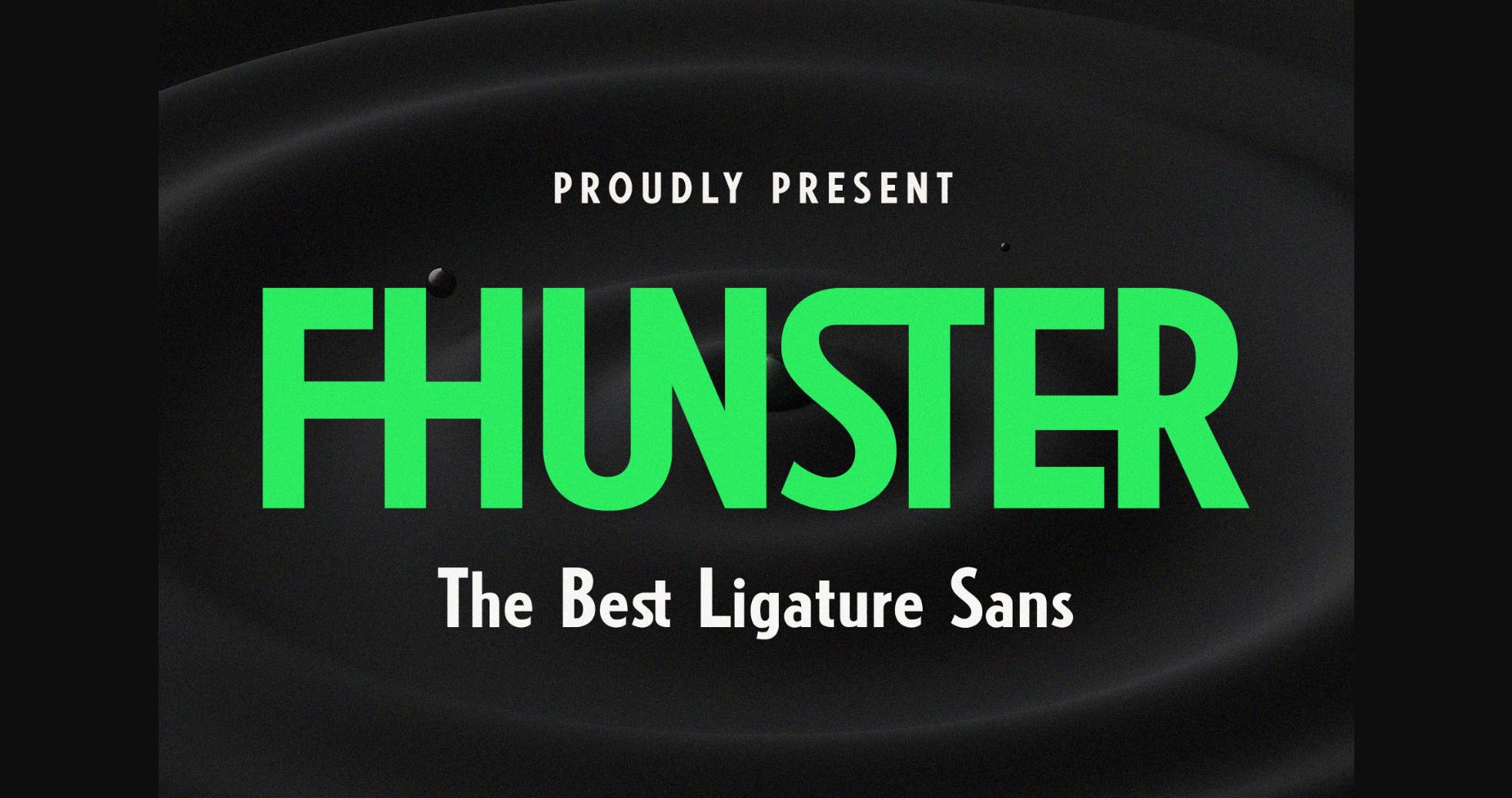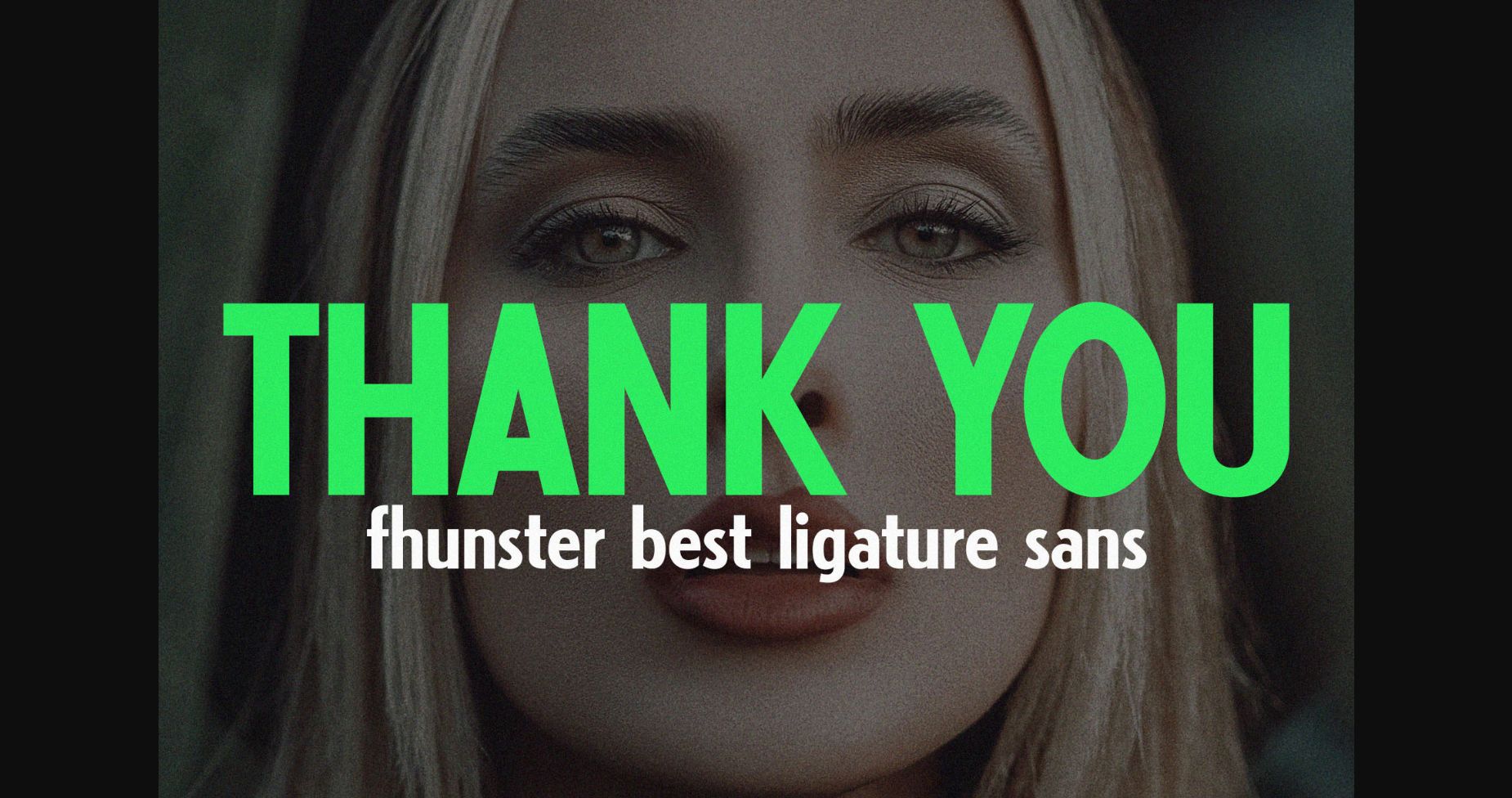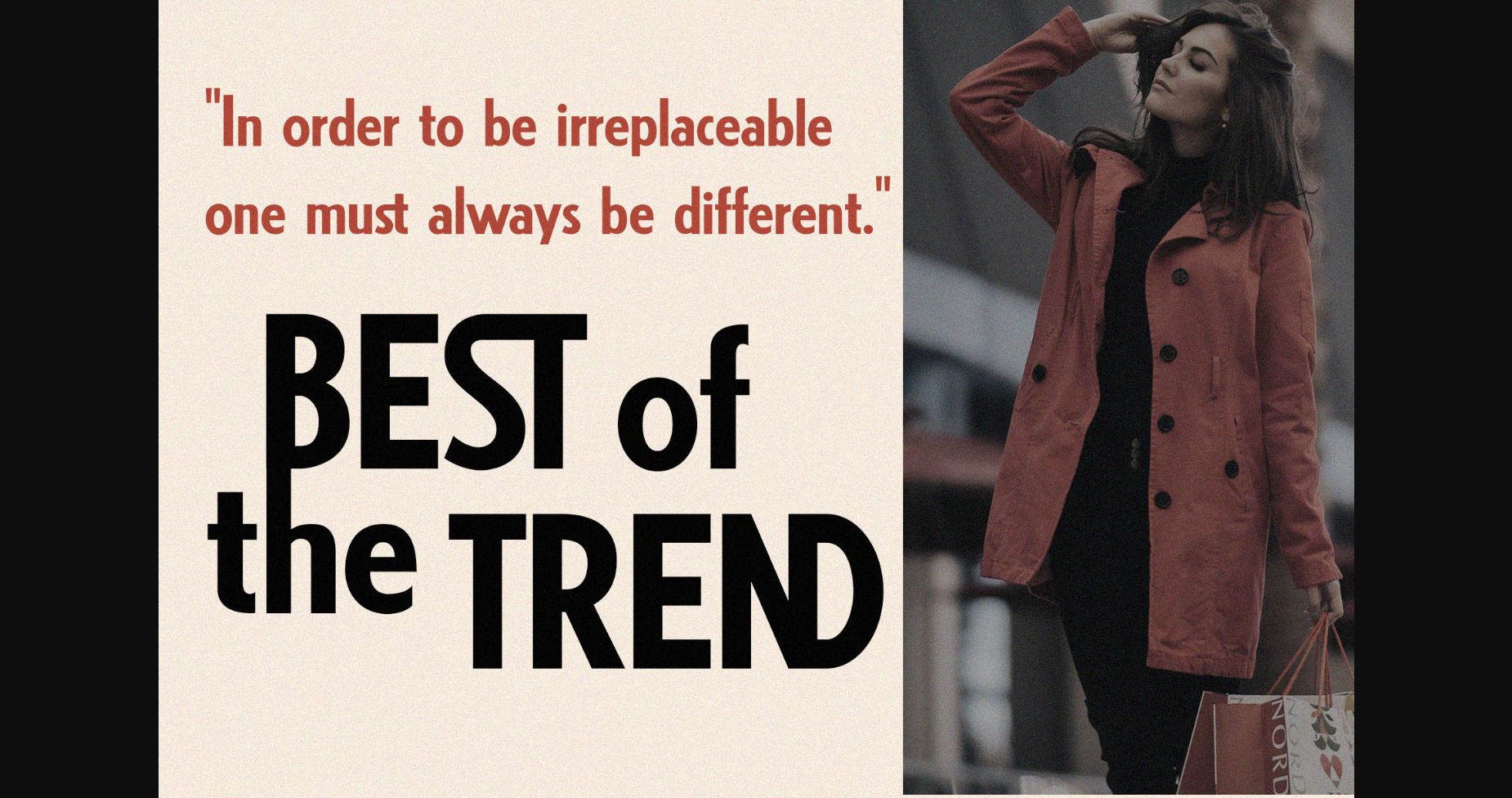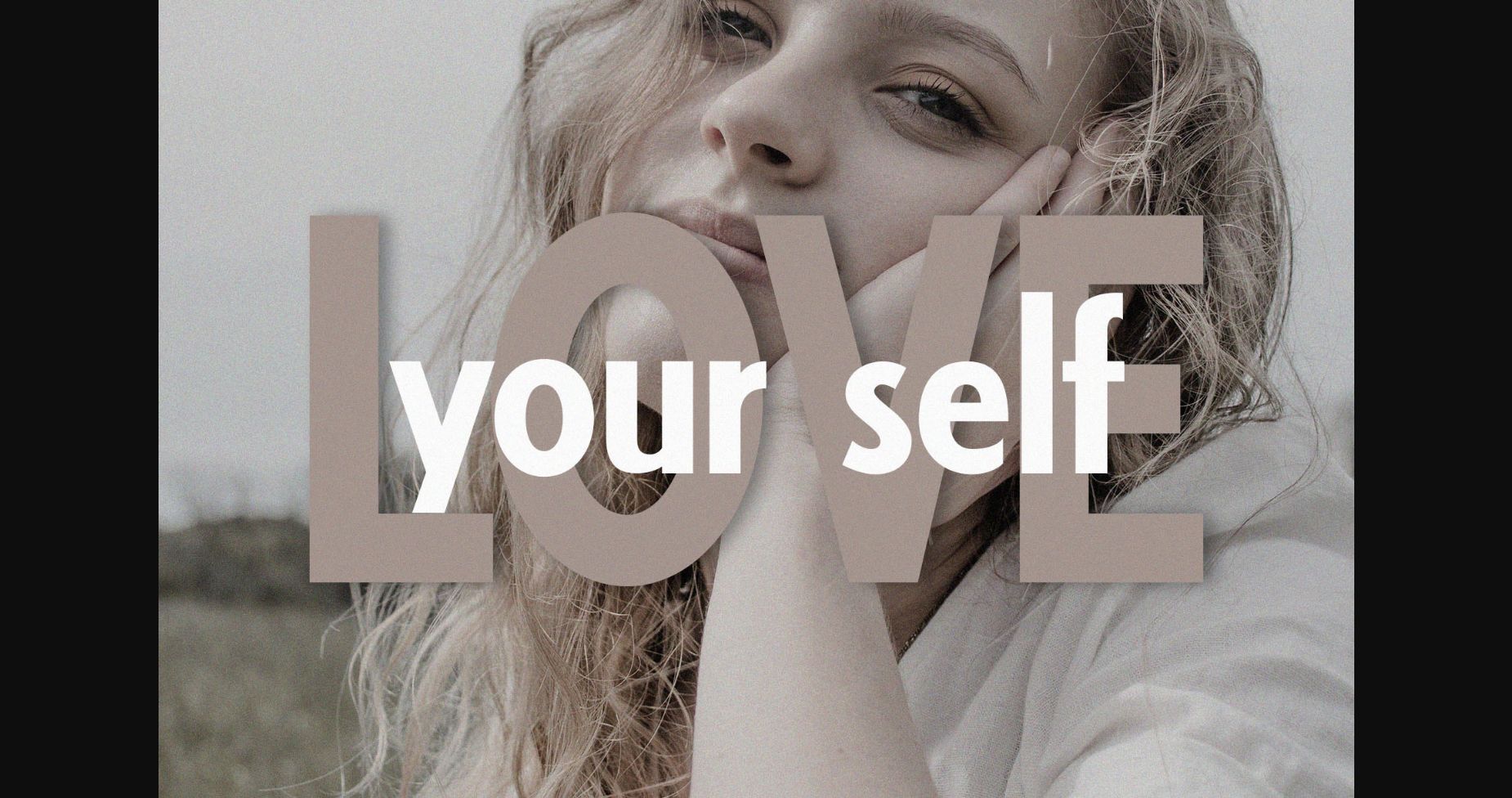
About Fhunster Font
Introducing the new Fhunster Best Ligature Sans
Fhunster is a classy, modern serif font.
The ligature feature in this font makes it look more modern and of high quality.
This font is modern and elegant and works great for websites, logos, magazines, and social media. This font is matched and ready to be used together for your next design!
For those of you who need a touch of elegance, style, classy, chic, and modernity for your designs, this font is made for you!
Fhunster is a classy, modern serif font.
The ligature feature in this font makes it look more modern and of high quality.
This font is modern and elegant and works great for websites, logos, magazines, and social media. This font is matched and ready to be used together for your next design!
For those of you who need a touch of elegance, style, classy, chic, and modernity for your designs, this font is made for you!